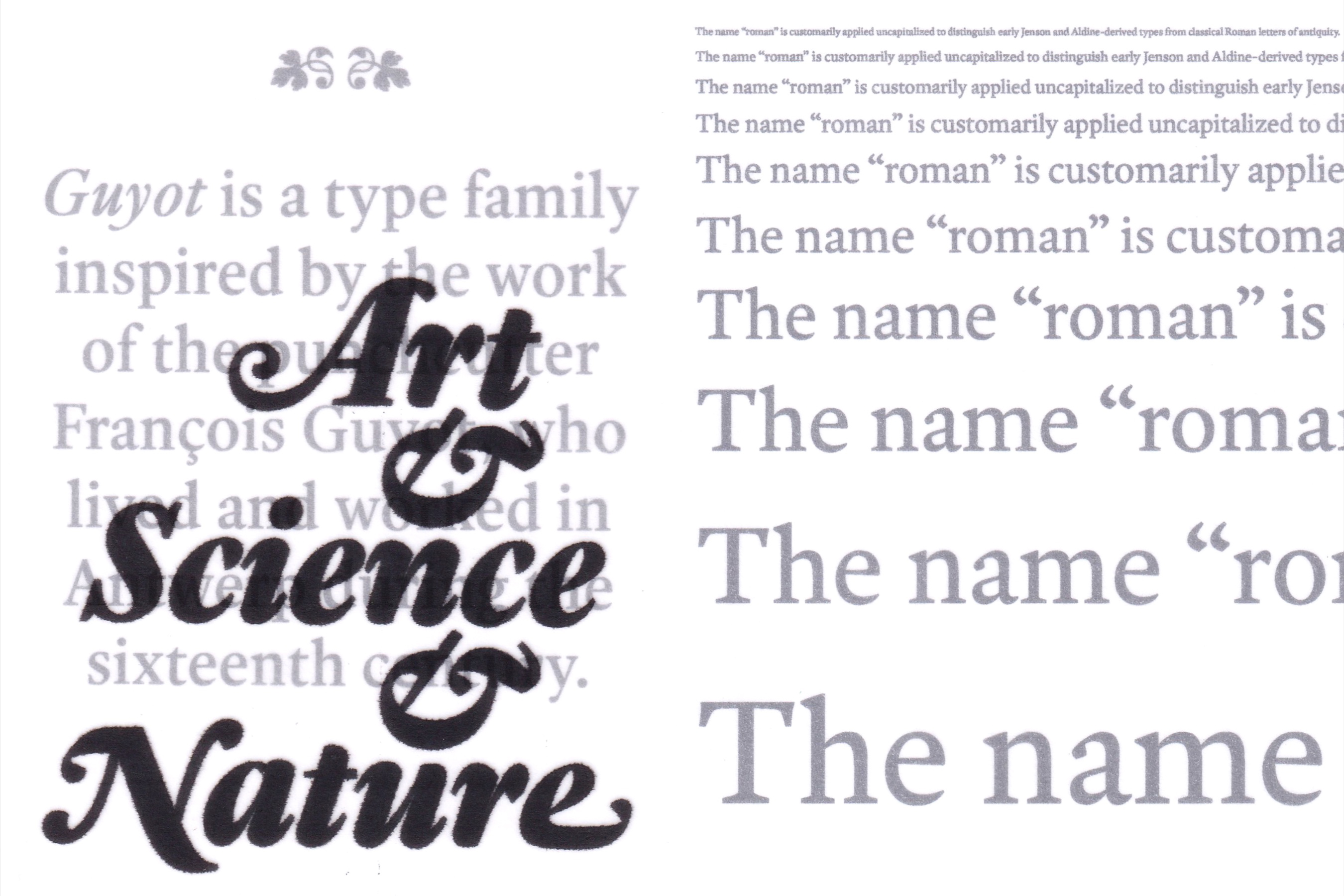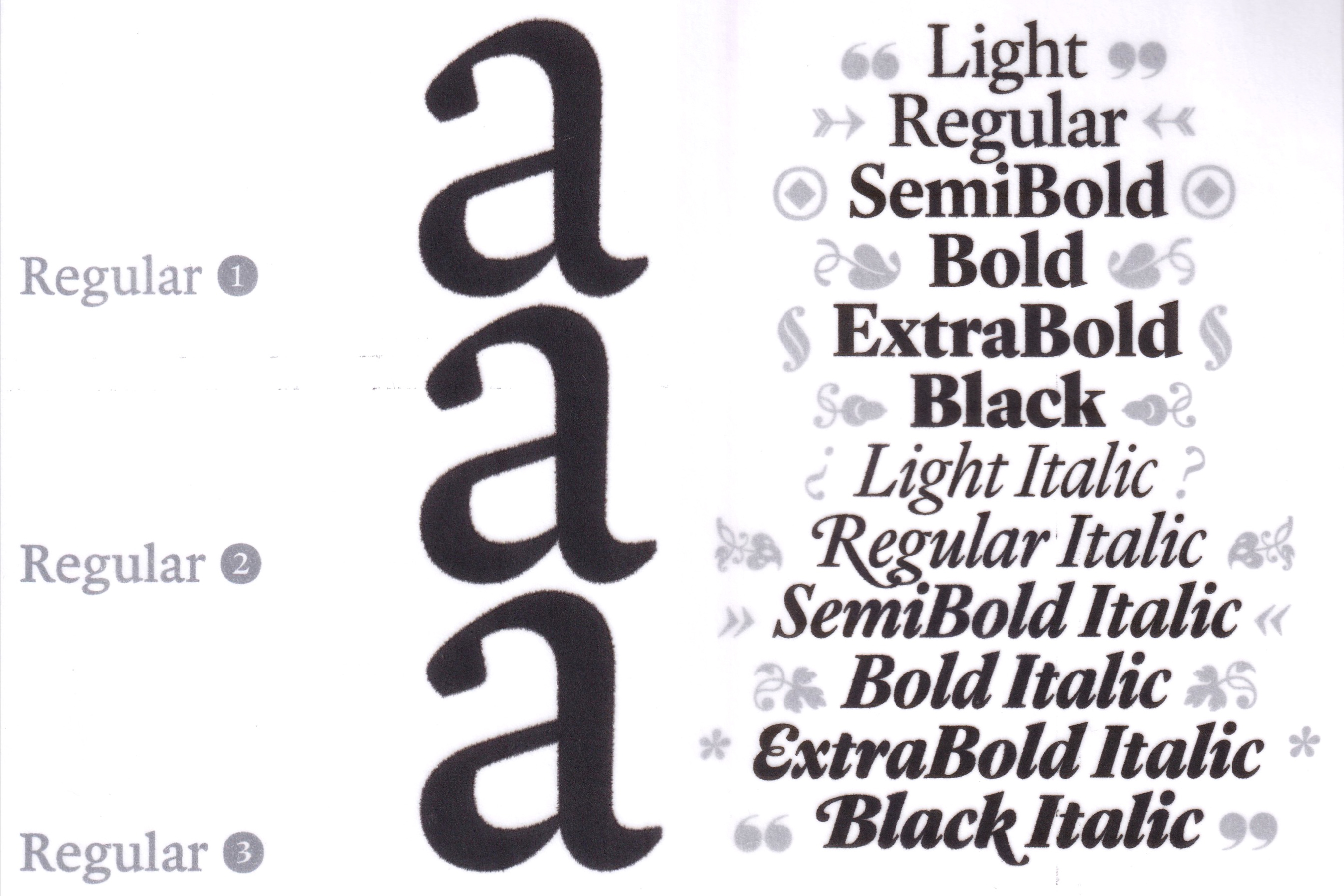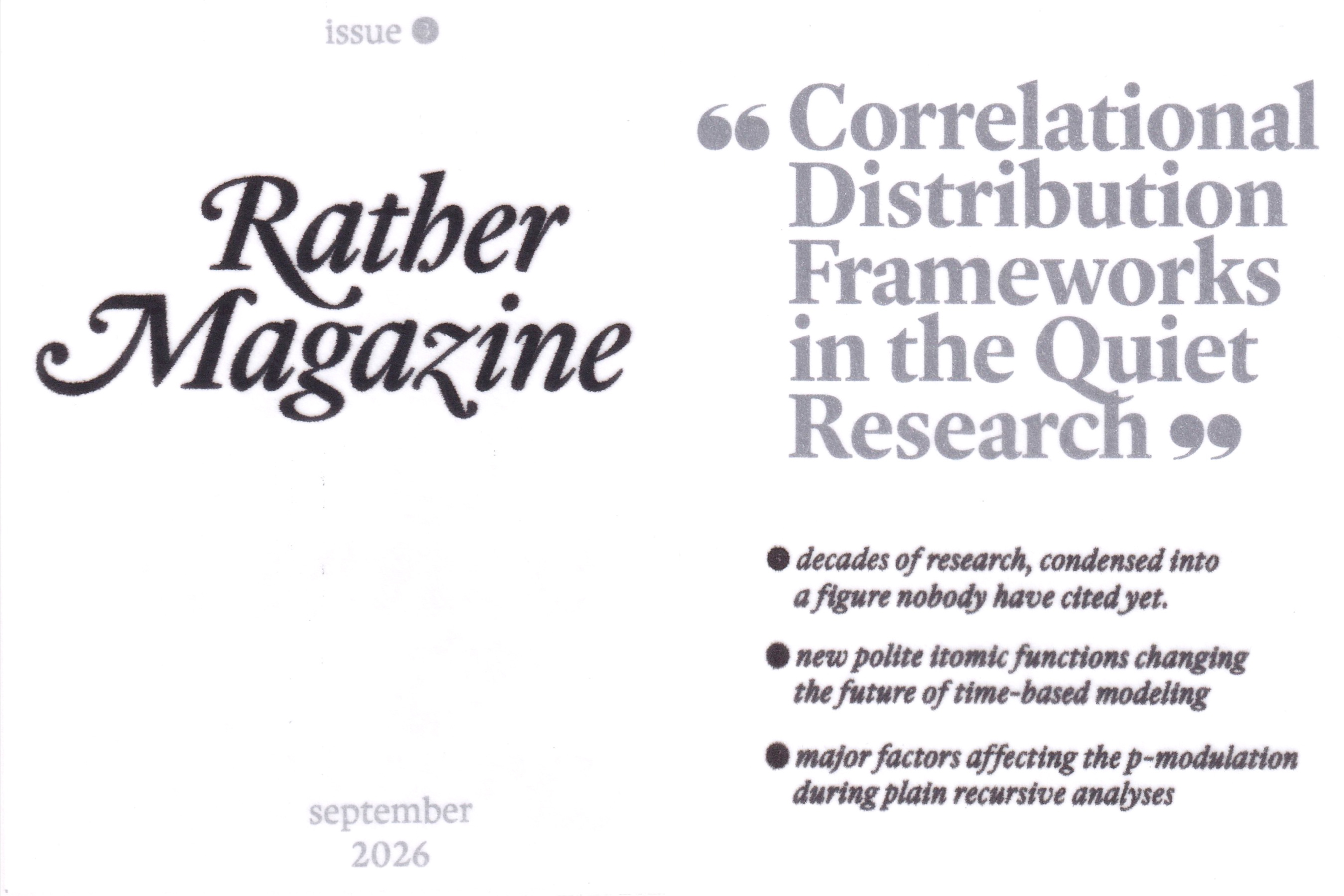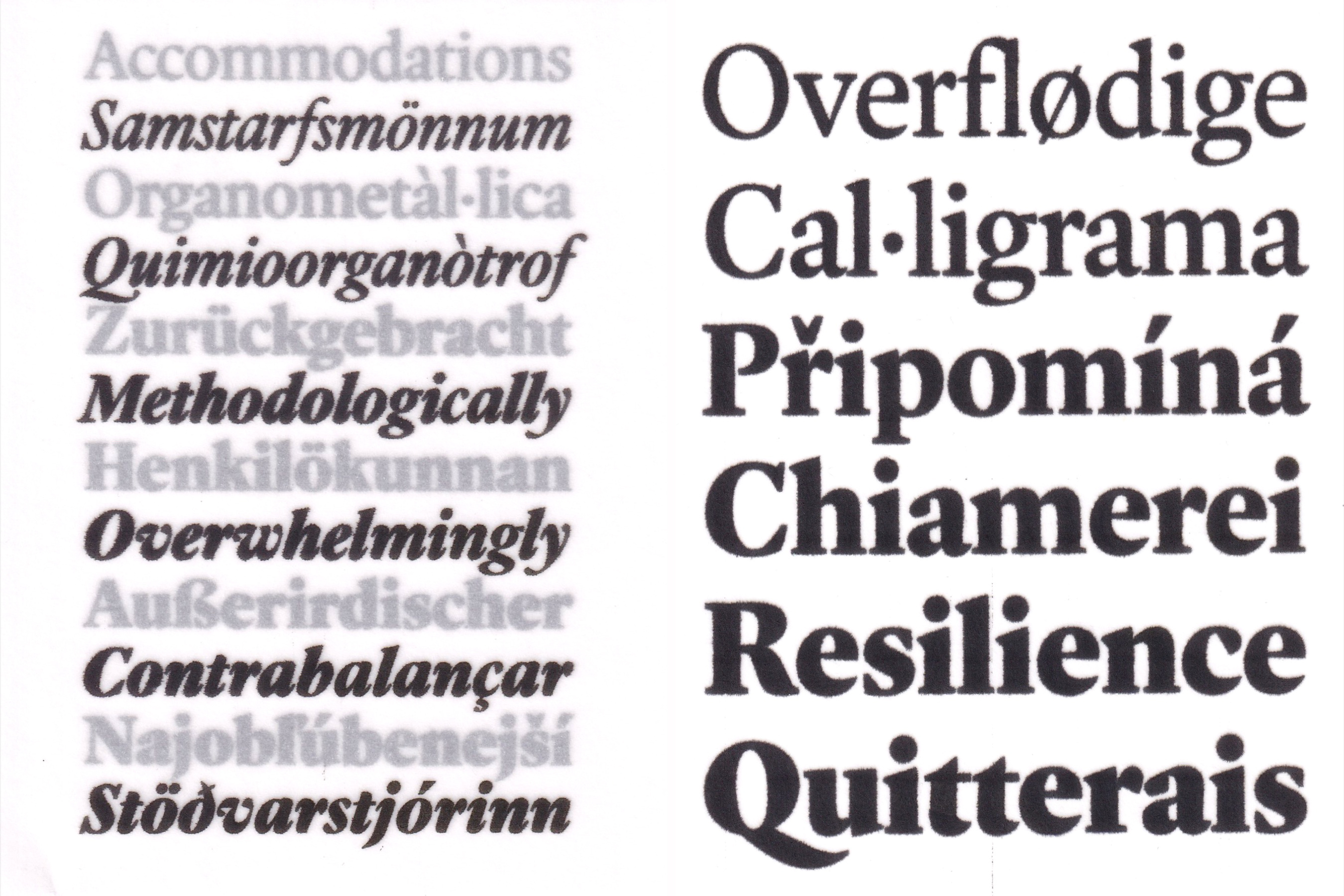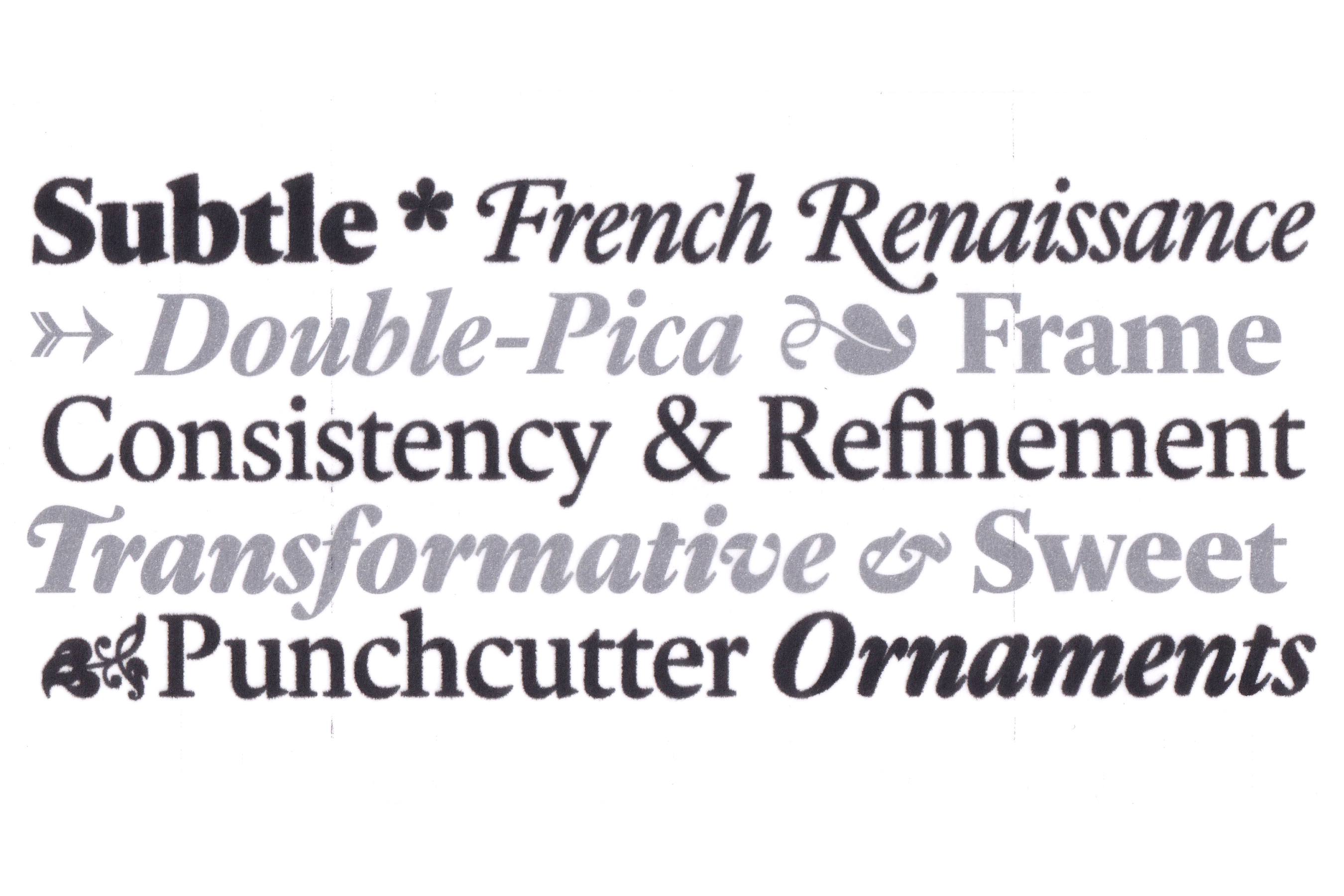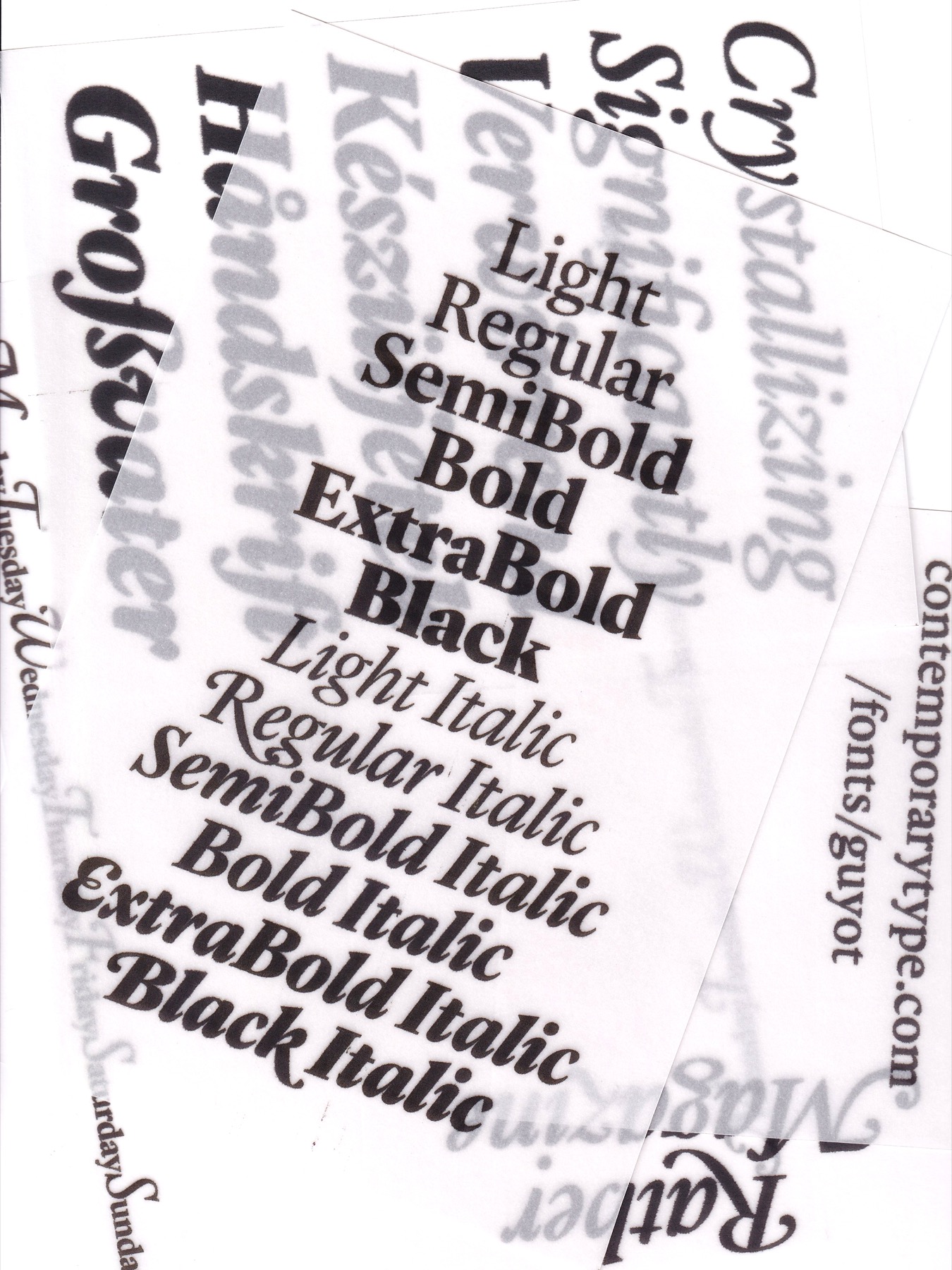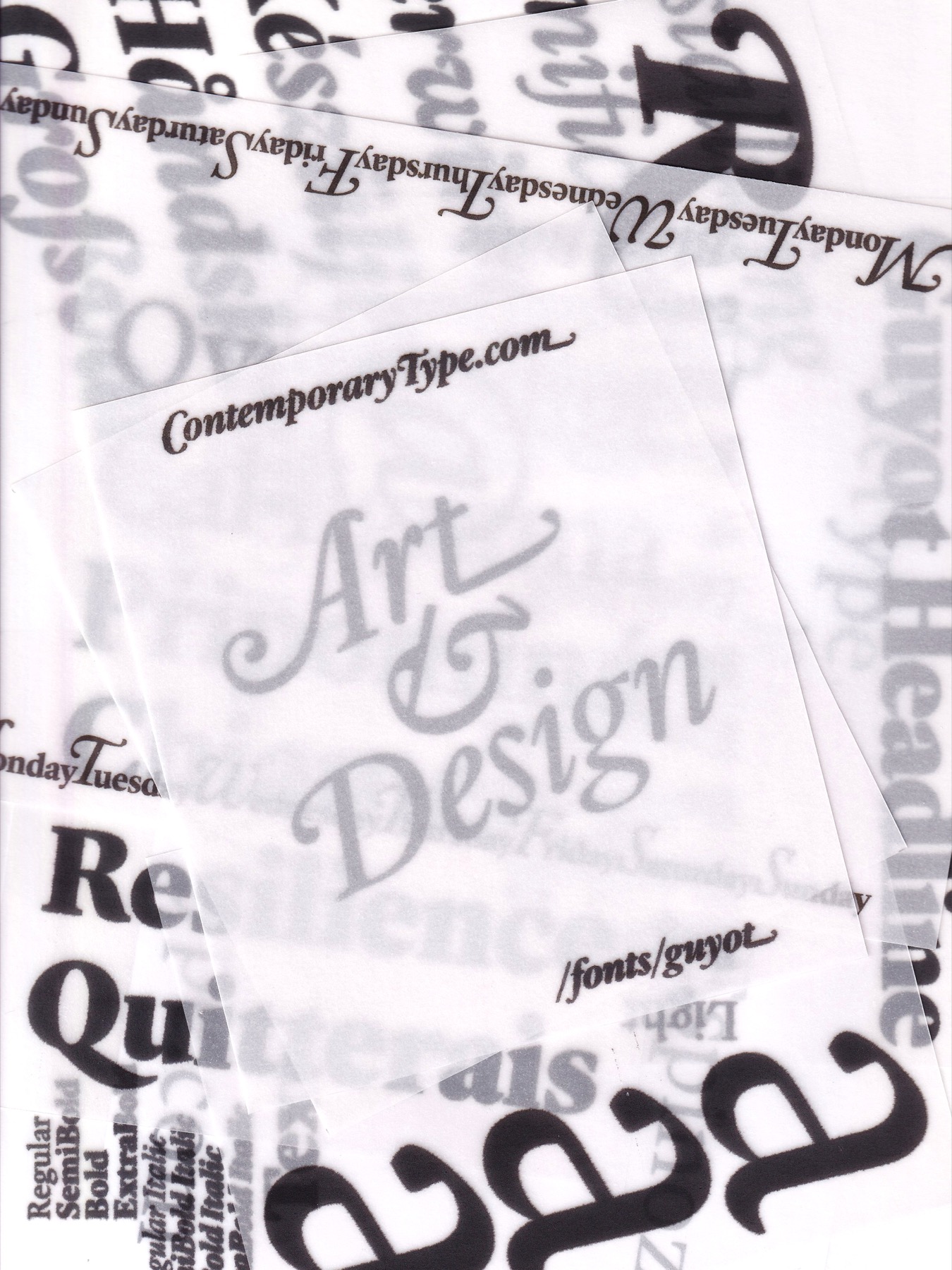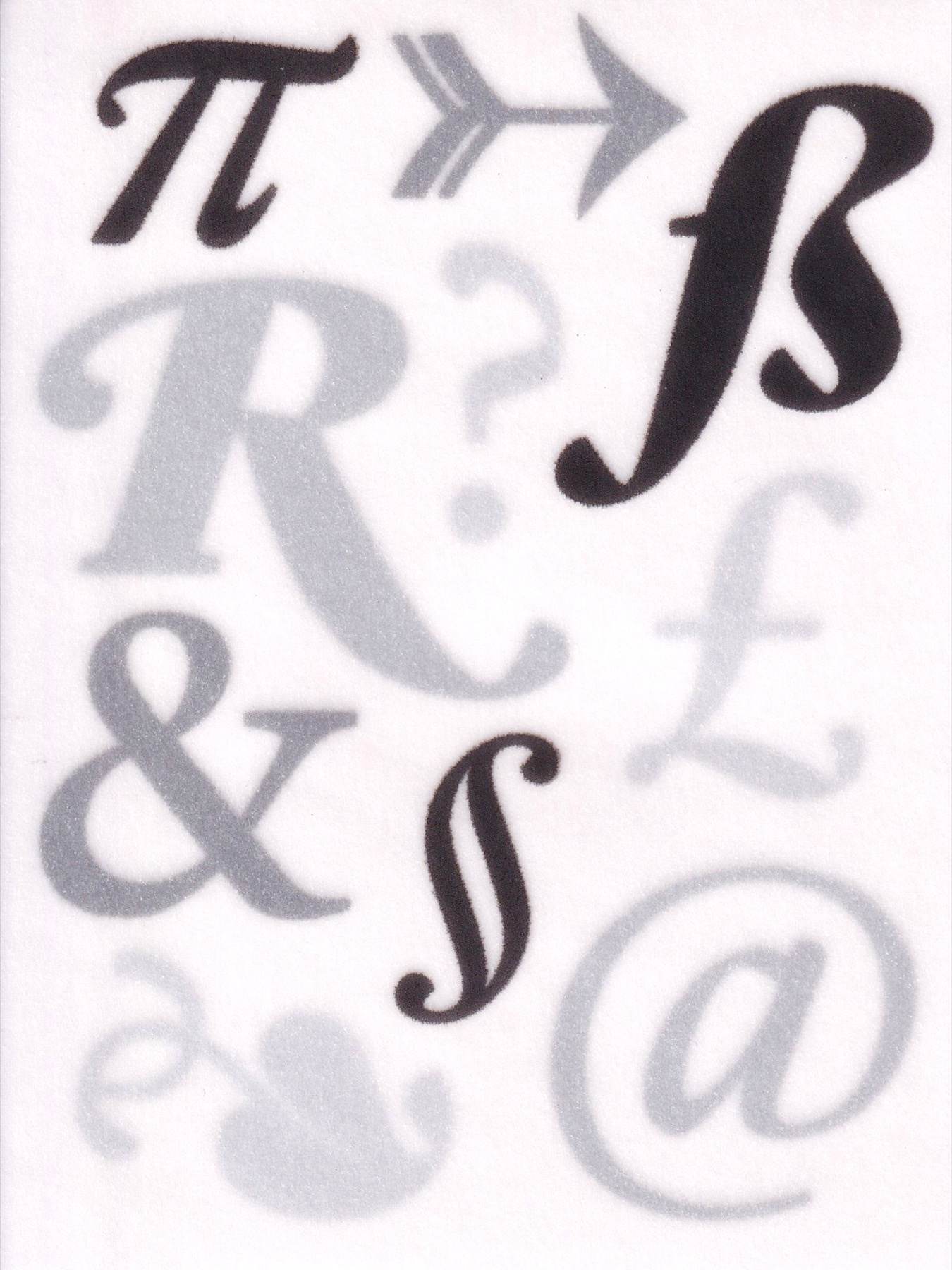
Guyot is a type family inspired by the work of the punchcutter François Guyot, who lived and worked in Antwerp during the sixteenth century. Ramiro Espinoza got acquainted with the work of Guyot while attending the Expert Class in Type Design at Antwerp’s Plantin Institute for Typography. Researching French and Flemish punchcutters, Espinoza soon realized that the work of the most important masters of the period had already been digitized. However, he found the work of lesser-known punchcutters like Guyot, though perhaps not of the same superior quality as the others, equally compelling. And so a digital Guyot seemed in order. Espinoza decided early on that his Guyot was not going to be a facsimile typeface, but rather a modern interpretation aimed at the editorial market. He selected the most interesting elements from the Gros Canon and Ascendonica sizes and assembled them into a consistent family of contemporary detailing. During his year at the Plantin Institute for Typography, Espinoza researched several more punchcutters from the seventeenth century. Details common to the types of that period—like an increased contrast and an enlarged terminal in the a—were applied to Guyot to give its look a more familiar and universal appeal. The Guyot family was eventually divided into three subfamilies: Headline, Text and Press to take full advantage of the possibilities of these optical ranges.
In 2018 Guyot was awarded by the Type Directors Club with a ‘Certificate of Typographic Excellence’.